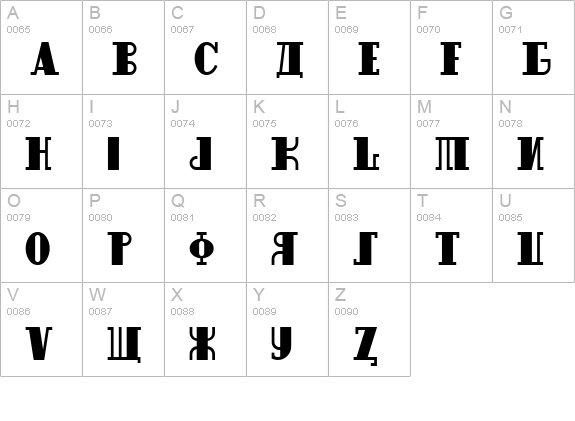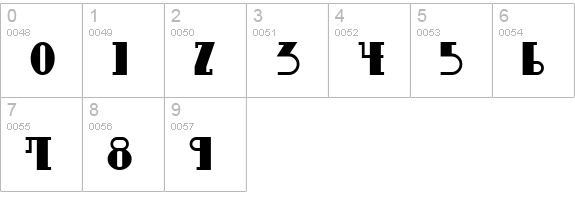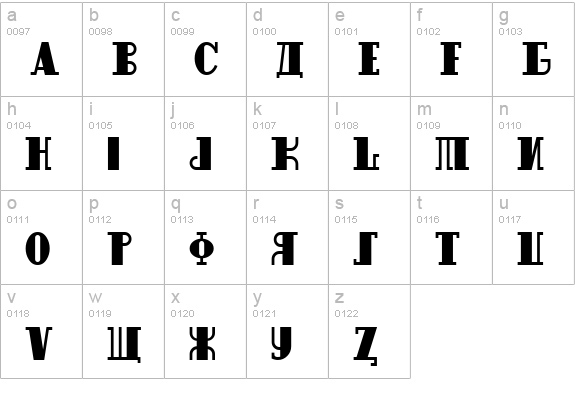
Introducing RaskalnikovNF, a captivating and bold display font that effortlessly combines modernity with a hint of vintage charm. This unique typeface is inspired by the iconic character of Raskolnikov from Fyodor Dostoevsky's masterpiece, Crime and Punishment, and exudes a sense of enigmatic allure that is sure to captivate any audience. With its bold and distinctive letterforms, RaskalnikovNF is perfect for headlines, logos, posters, and any design project that calls for a touch of drama and sophistication. The sharp angles and elegant curves of this font create a harmonious balance, making it visually striking yet highly legible. But what truly sets RaskalnikovNF apart is that it is not just another premium font. It is, in fact, freely available to download at FontsMarket.com. Yes, you read that right - this extraordinary typeface can be yours without spending a dime. FontsMarket.com, the leading platform for high-quality fonts, is proud to offer RaskalnikovNF as a free download, allowing designers and creatives to unleash their imagination without breaking the bank. Whether you're a professional designer looking to add a touch of class to your latest project or a hobbyist seeking a font that stands out from the crowd, RaskalnikovNF is the perfect choice. Its versatility and aesthetic appeal make it a valuable asset in any creative arsenal. So why wait? Get your hands on RaskalnikovNF today and let your designs speak volumes with its bold presence and timeless elegance. Download it freely at FontsMarket.com and embark on a journey of artistic expression that knows no bounds.